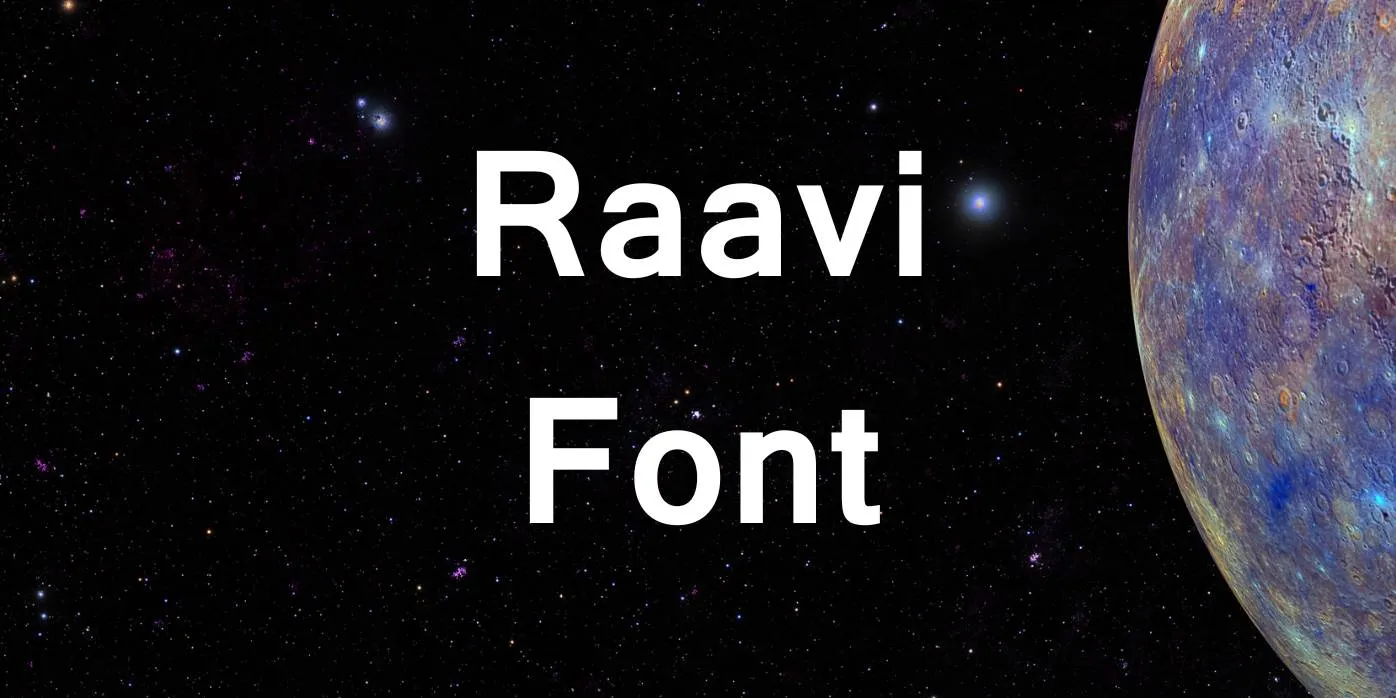
Raavi Font is perfect for Punjabi cultural events, Sikh temple communications, Gurmukhi script publications, Indian restaurant branding, South Asian cultural festivals, Punjabi language materials, multicultural education resources, traditional Indian wedding invitations, diaspora community signage, and authentically vibrant marketing communications.
Raavi Font is exciting because it celebrates the rich cultural heritage and vibrant spirit of Punjabi tradition with its gracefully structured letterforms that honor the beauty of Gurmukhi script while maintaining exceptional readability for modern multicultural communication. Its culturally authentic character design reflects both the spiritual depth of Sikh philosophy and the joyful exuberance that defines Punjabi celebrations, making it perfect for brands seeking to honor South Asian heritage with genuine respect and cultural authenticity.
Raavi Font family includes light, regular, medium, bold, and black weights, each with corresponding italic versions. The font family also features Punjabi-inspired ornaments, cultural ligatures, traditional symbols, and South Asian decorative elements that enhance its authentic aesthetic and multicultural versatility.
This culturally respectful typeface represents the perfect fusion of traditional heritage and contemporary functionality. Raavi Font Free Download allows designers to explore its cultural possibilities before making a commercial commitment. The font's ability to convey both spiritual depth and cultural celebration makes it ideal for religious institutions, cultural organizations, and businesses serving Punjabi and South Asian communities with authentic respect.
Whether you're developing cultural organization identities, creating South Asian celebration materials, or designing multicultural educational communications, Raavi Font brings an unmistakable sense of Punjabi authenticity and cultural pride to every project. Its respectful character and cultural heritage create powerful connections that resonate with South Asian communities and audiences appreciating authentic cultural representation.
The font's versatility excels in cultural and religious environments where tradition and authentic representation are sacred. Its culturally sensitive character makes it particularly effective for Sikh temples, cultural centers, Indian restaurants, and educational institutions seeking to establish respectful relationships with Punjabi communities and multicultural audiences who value authentic cultural expression.
For designers working on projects requiring genuine Punjabi cultural authenticity and South Asian appeal, Raavi Font provides an exceptional solution. Its respectful presence and comprehensive cultural elements offer the tools needed for creating truly authentic communications, while its cultural integrity ensures your designs honor the rich heritage and vibrant traditions that define Punjabi culture and South Asian community excellence.